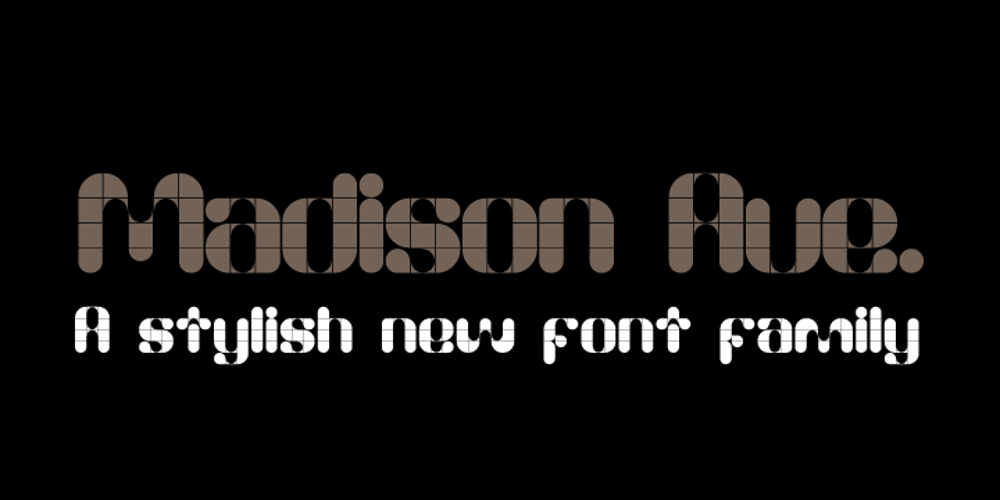
Madison Ave. Font Family was designed by Wilson Thomas and published by Funk King. Madison Ave. contains 12 styles and family package options. The Madison Ave. family started from Madison Ave. at Fontstruct.com. As my most downloaded font, this was an easy, although not necessarily logical choice to make – regarding taking an existing free font and attempting to offer it for purchase. The font is very basic and simple in its layout, but has achieved popularity over at Dafont with almost 80,000 downloads with its cool, understated nature and inherent sophistication. The original Madison Ave. is now 95 Madison Ave. A couple of glyphs have changed from the original, but mostly the set is the same. The big news here is the availability of multiple variations on the original. Ninety-five refers to the filter settings used to achieve the faint cross lines in the font. The sequence 95-100 provides a gradual fade to solid effect when used together. The other versions use variations on the filter settings that allow each its own distinctive flavor, while at the same time maintaining inherent characteristics of the original. Ninety-five is now joined by 55, 75, 97, 99, 100, 102, 105, 155, 175, 201, 202, and 275. 100 is the solid version which doesn’t contain the trademark lines found in 95. In 95-99, the line width varies to achieve subtle effects. 50 and 85 are distorted by reducing the filter settings in a somewhat minimizing fashion. In 102-205, these are distorted by increasing the filter settings above the normal which is what 100 represents. While some of the effects are extreme and challenge the legibility of text, these can be fun or edgy. They offer a cohesion that can be used to advantage for different projects that require the use of a modern font family.